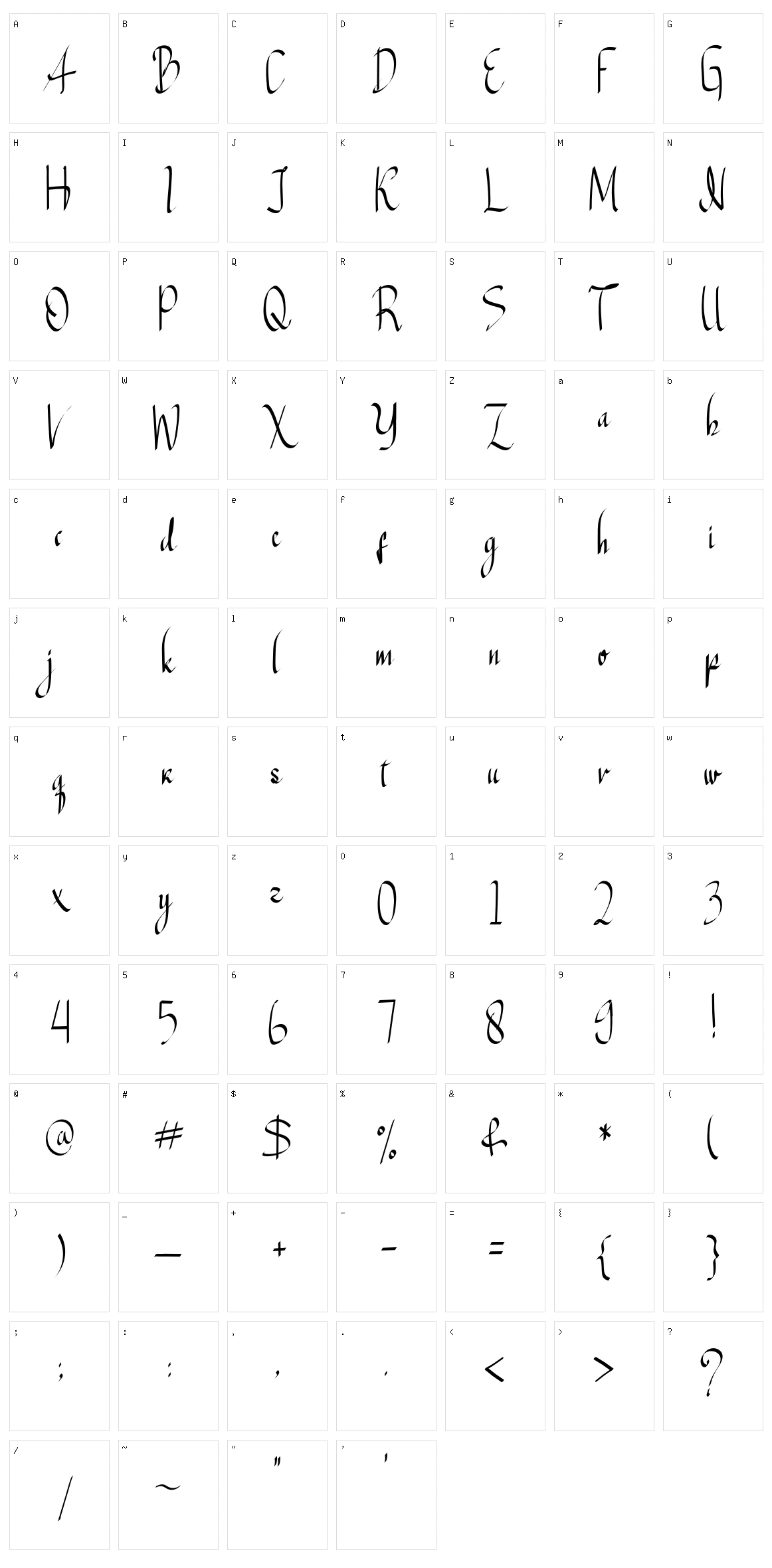
The Oxcello is a Stylish handwritten fonts with a natural & stylish flow.
Perfect for personal or business branding, wedding invitation, cosmetics,
fashion, signature logo, magazine cover, advertising and these typefaces
work well for many different aesthetics.